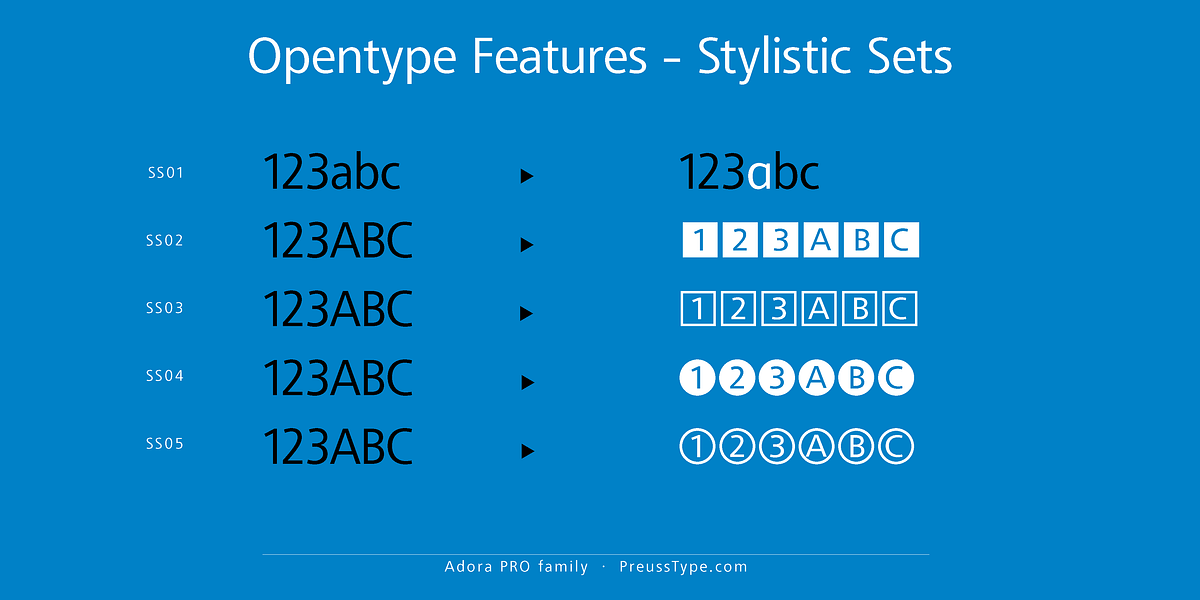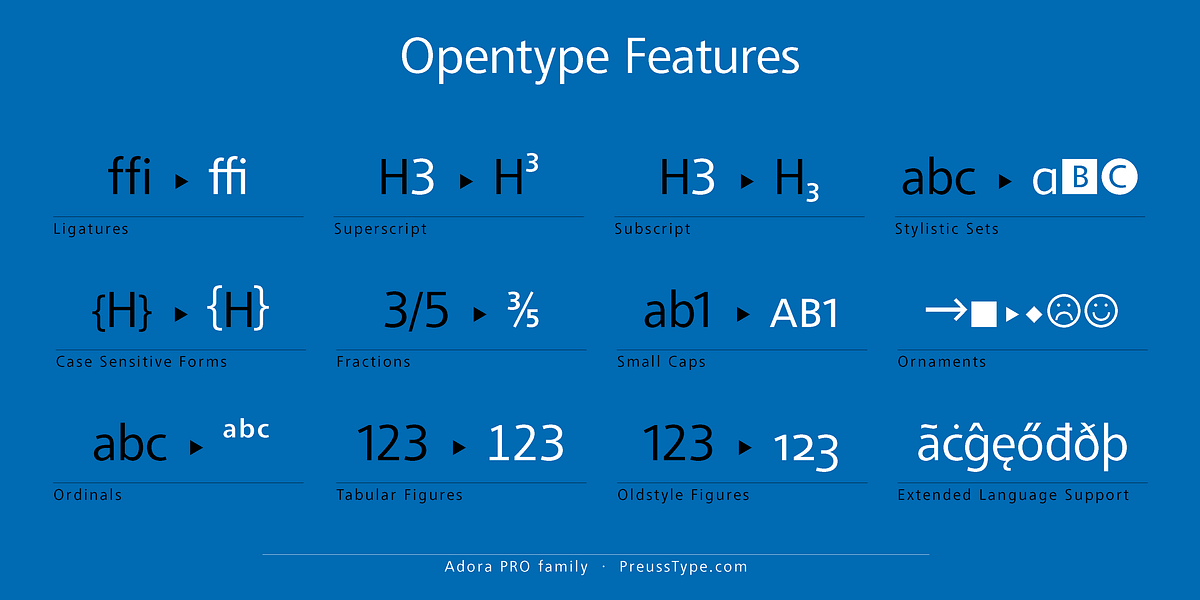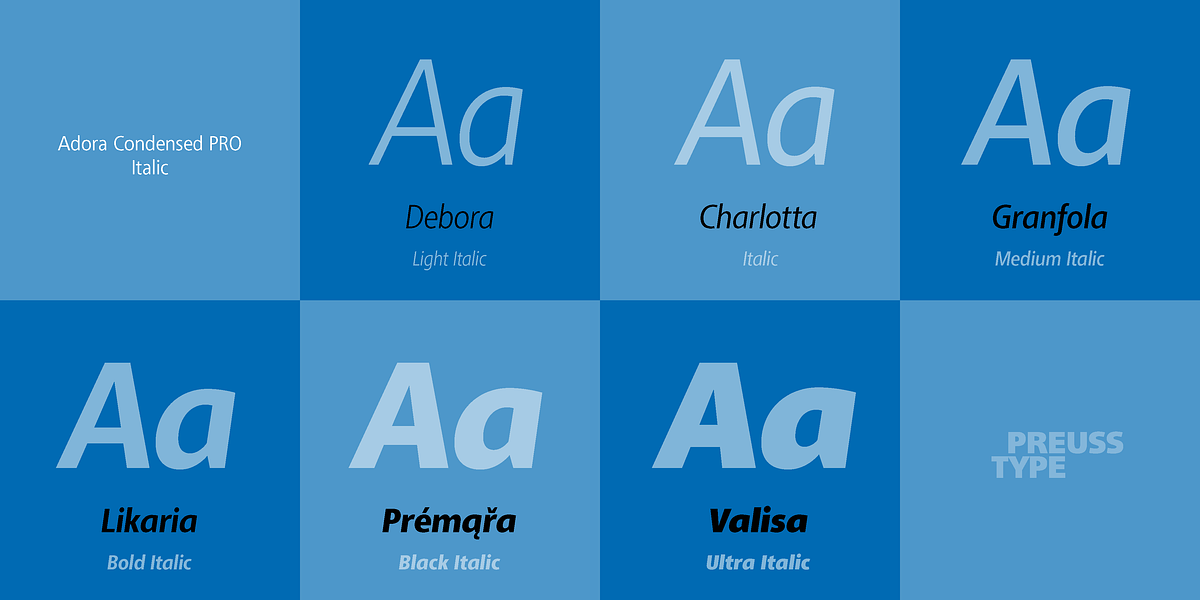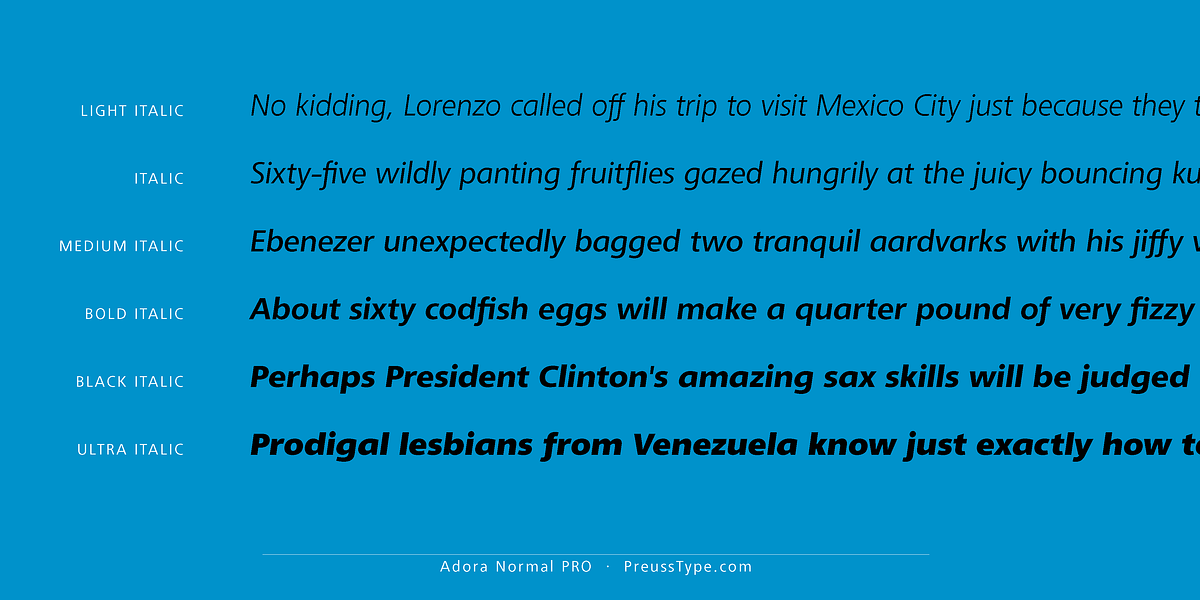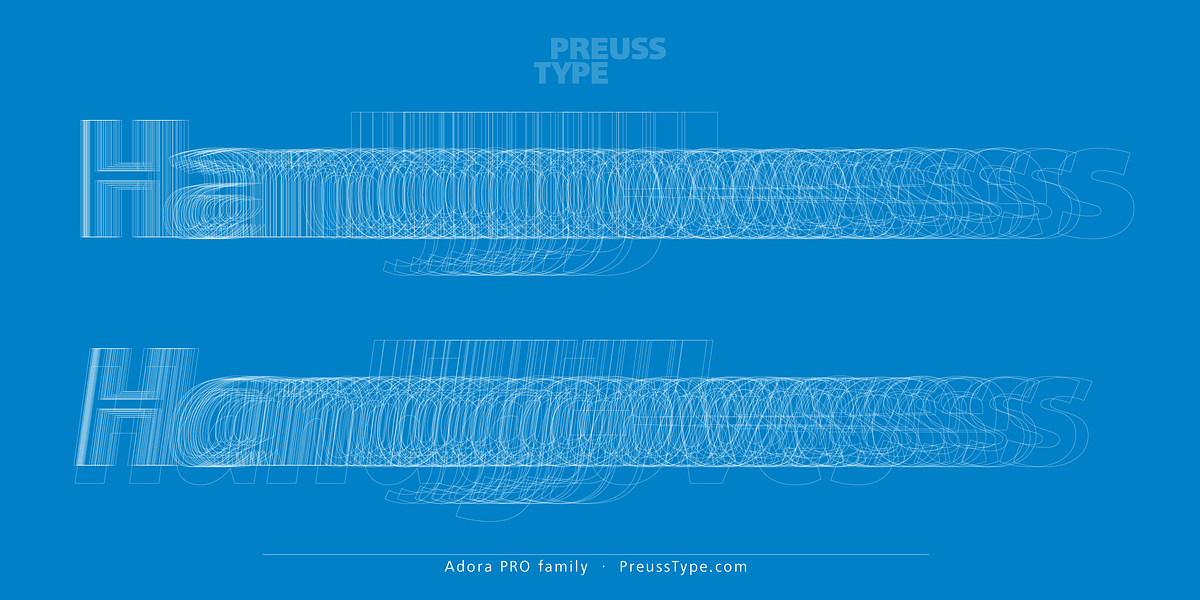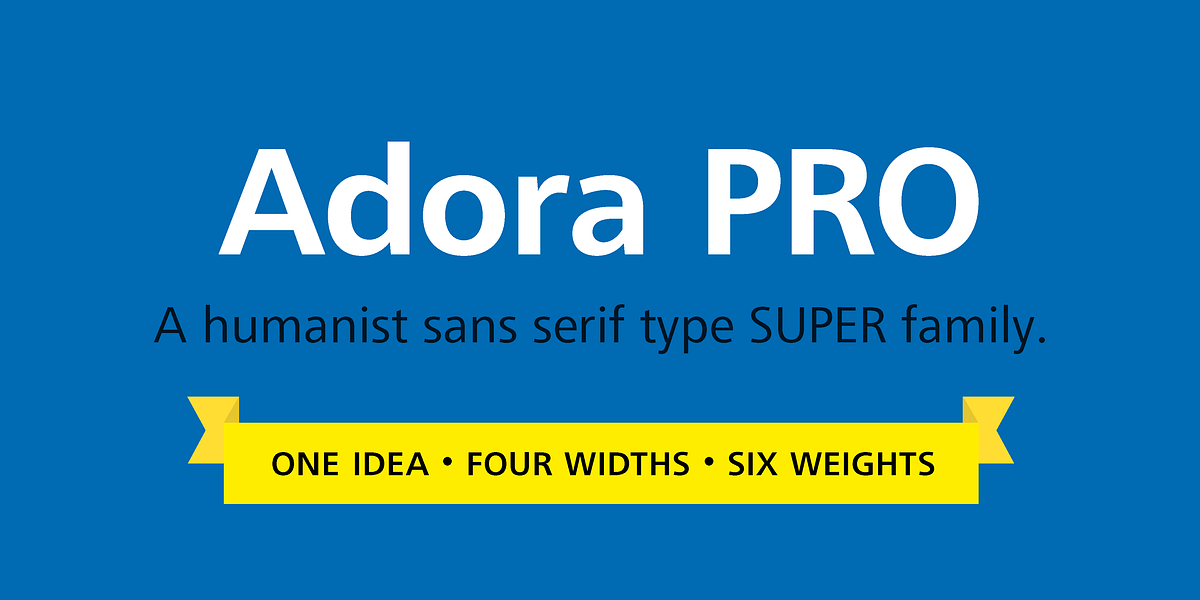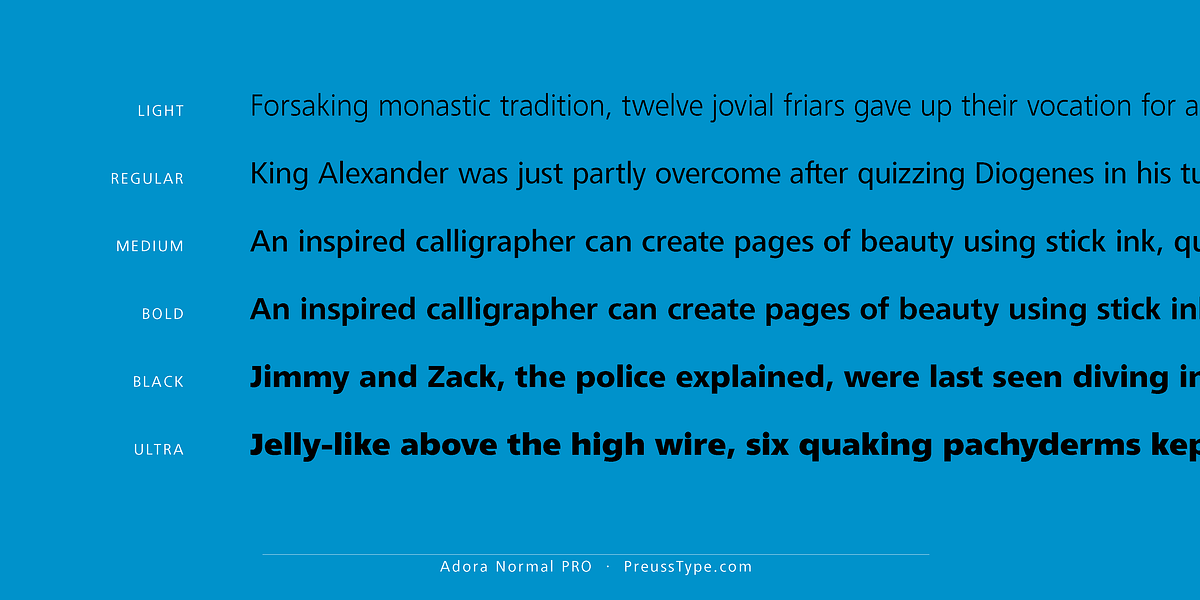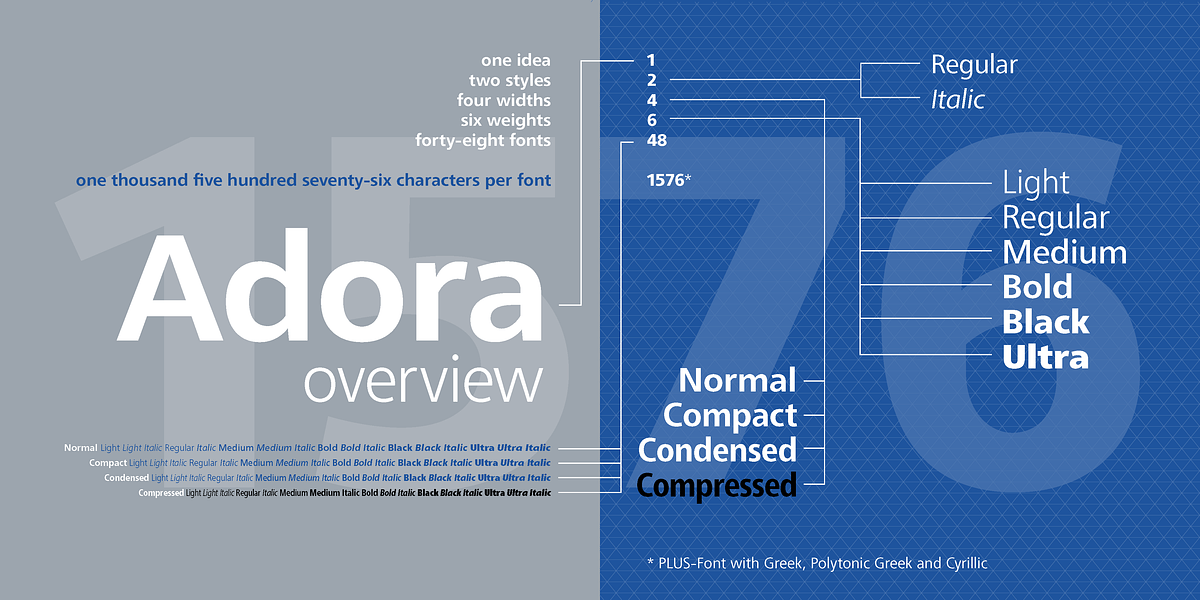
Adora PRO
Adora PRO is a humanist sans-serif typeface designed by Ingo Preuss. It's notable for its extensive range of weights and widths (84 in total!), catering to a broad spectrum of design needs. The font includes features like ligatures, various numeral styles, and currency symbols, making it suitable for both text-heavy applications and display uses. Its humanist touch lends a sense of warmth and approachability.